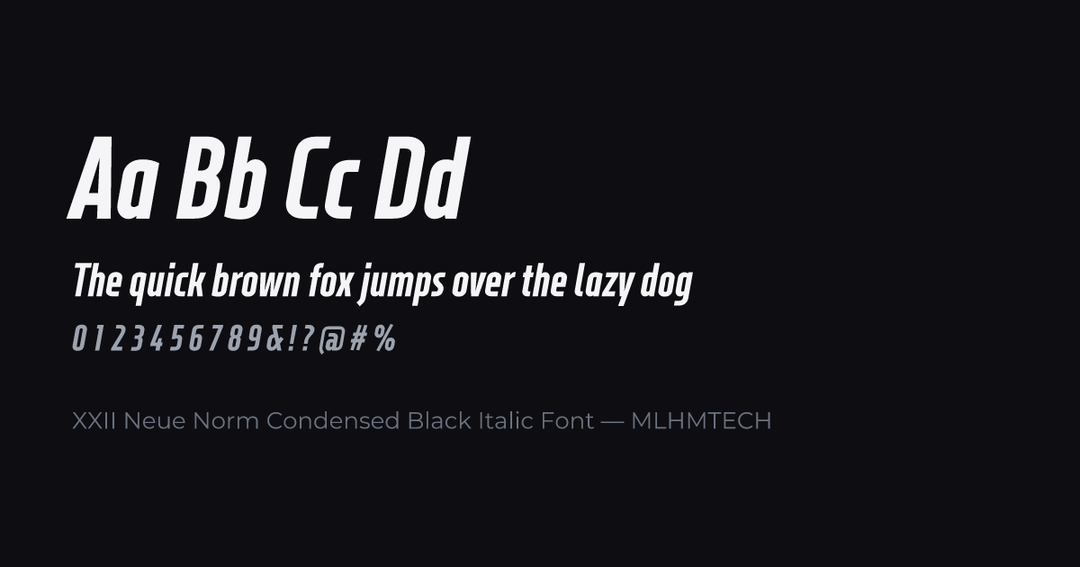
XXII Neue Norm Condensed Black Italic Font
A bold, condensed sans-serif font with an italic twist, ideal for eye-catching headlines and contemporary branding.
This is the Condensed Black Italic weight of the XXII Neue Norm family, a versatile sans-serif typeface known for its clean geometry and modern appeal. The condensed proportions make it space-efficient, while the black weight and italic slant add dramatic emphasis.
Perfect for posters, social media graphics, video titles, and branding projects that require a strong, confident voice. Its tall x-height ensures legibility even at smaller sizes, making it a practical choice for both print and digital use.